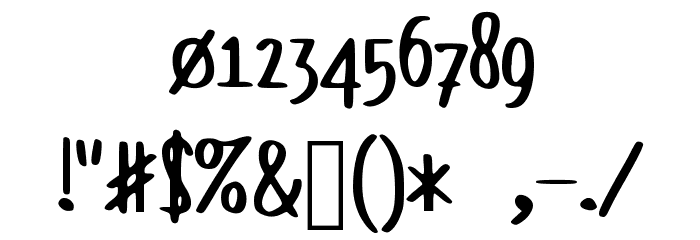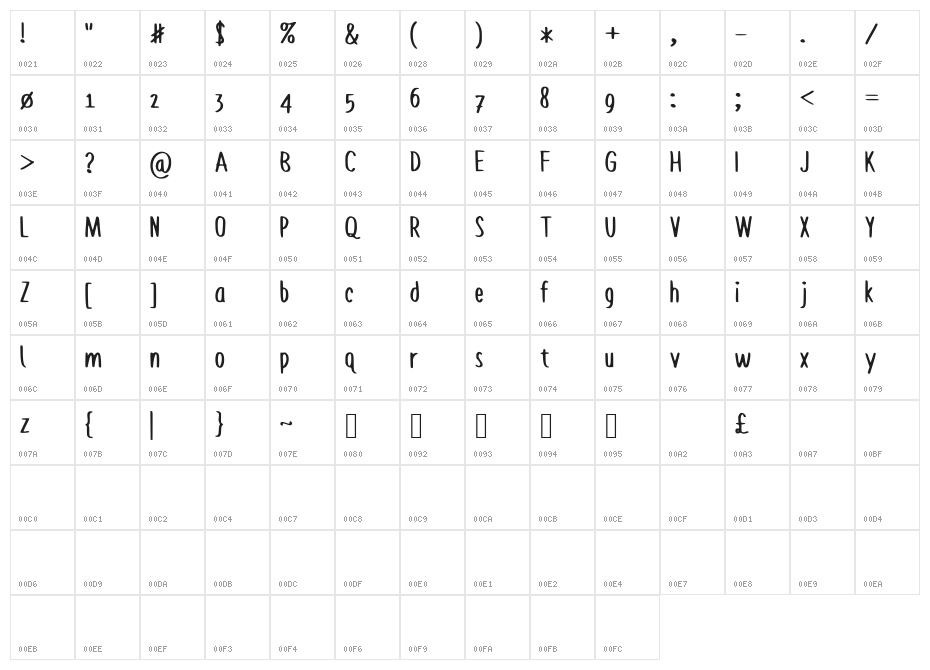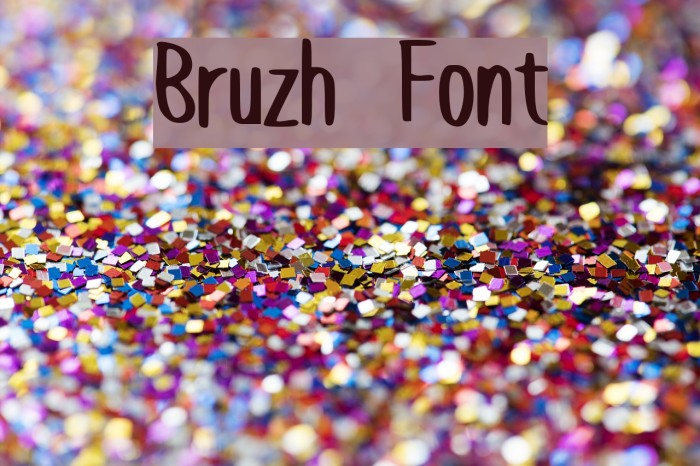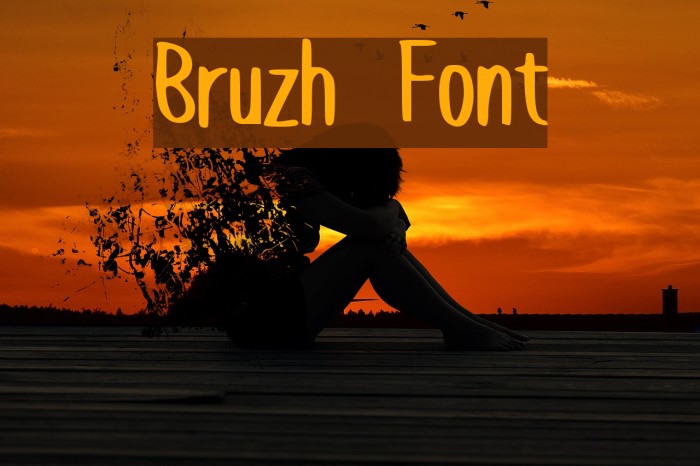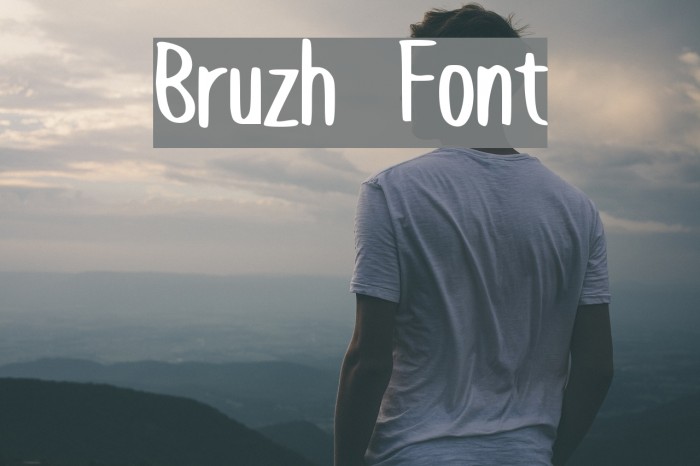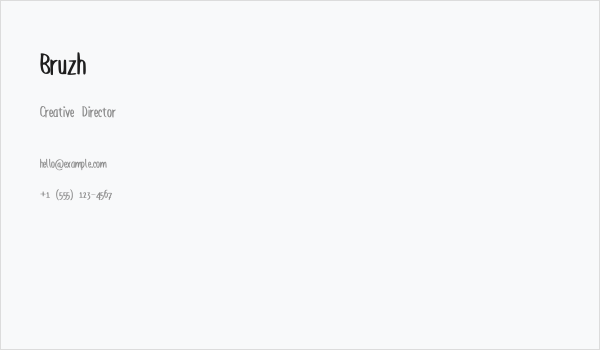
Bruzh Font
Bruzh Description
This font features a playful and casual handwritten style, characterized by its smooth curves and slightly irregular strokes. The uppercase letters are bold and rounded, giving a friendly and approachable feel. The lowercase letters maintain a consistent flow, enhancing readability while retaining a whimsical touch. Numbers and special characters are designed to match the overall aesthetic, ensuring a cohesive look across all text. The font's informal nature makes it ideal for projects that require a personal or creative touch.